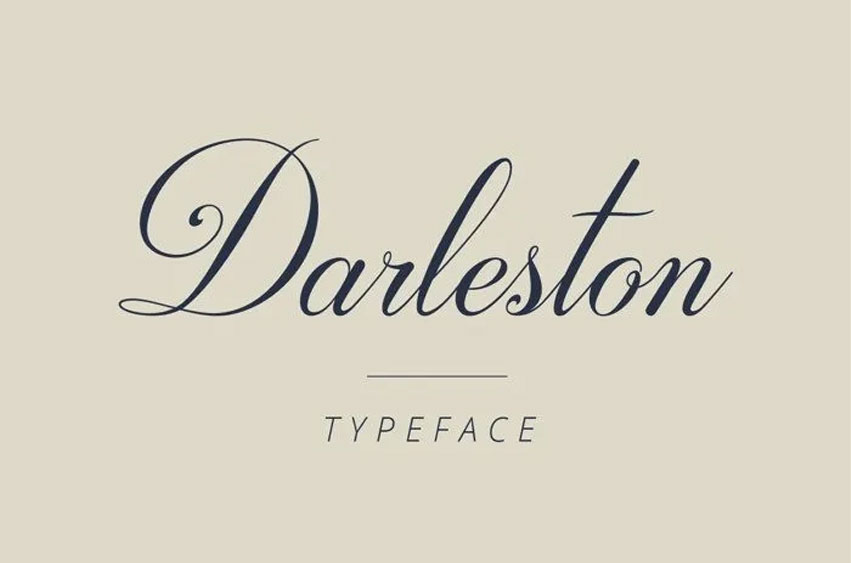
Darleston Font
Darleston Font is a totally new, fresh and modern calligraphy style font with decorative characters and a dancing baseline!
That is why a design like this on an invitation looks so beautiful and it can also be used as the branding material of any company, business cards, quotes etc.